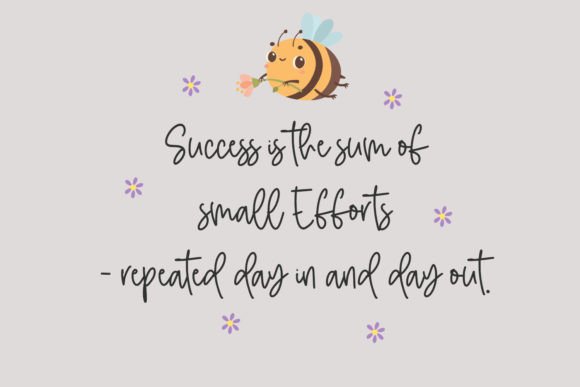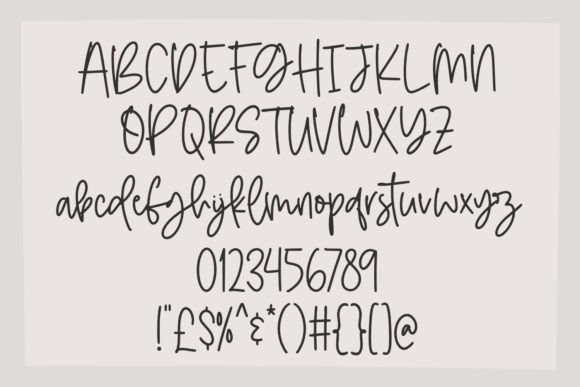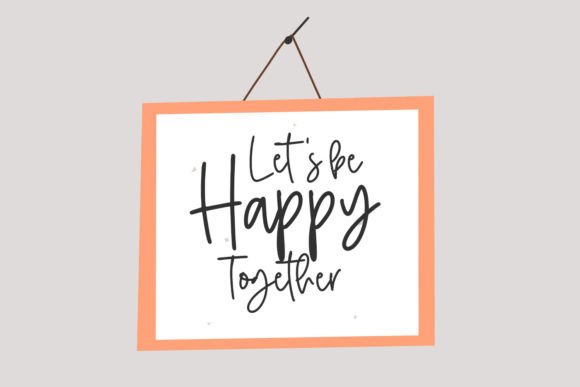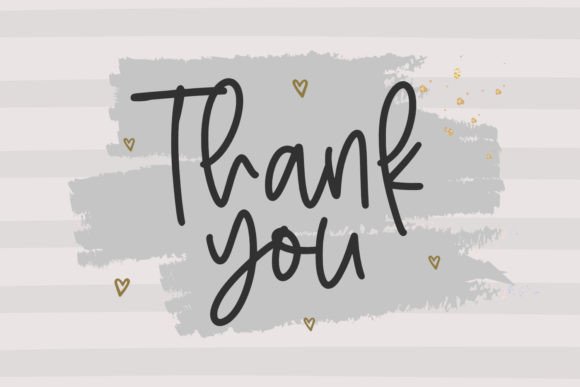
Unlock the Whimsy of Canilea Script Font
Have you ever stumbled upon a font that makes you feel like you’re holding a watercolor brush in your hands? That’s exactly what happens when you meet Canilea Script Font. As a designer, there’s nothing quite like the thrill of discovering a new font that speaks to your creative soul. And Canilea Script Font is one of those rare gems that will make your heart skip a beat.
Canilea Script Font is a charming handwritten script font that’s designed to add a touch of warmth and whimsy to your designs. Its playful strokes and curves are perfect for creating endearing and inviting designs that will capture your audience’s attention. Whether you’re working on a wedding invitation, a children’s book, or a social media campaign, Canilea Script Font is the perfect addition to your design toolkit.
Key Features of Canilea Script Font
- Unique Characteristics: Elegant, cursive script font with a touch of elegance and sophistication, ideal for formal invitations, wedding designs, and other high-end applications.
- Language Support: Supports Latin-based languages, including English, Spanish, French, and many more.
- Font Style: Comes in a single style: Regular, with no bold or italic variations.
Designer Review: Canilea Script Font
Overall, I think Canilea Script Font is a lovely addition to any designer’s toolkit. Here’s what I like about it:
- ✨ Beautiful, elegant lines that make it perfect for invitations, wedding stationery, and other special occasions
- ✨ Comes in a range of weights and styles, giving designers plenty of flexibility when it comes to customization
- ✨ Great for creating a vintage or classic look, which is perfect for designers who want to evoke a sense of nostalgia or tradition
- ⚠️ Some of the characters may not render as well at smaller font sizes, which could be a problem for designers who need to use the font in smaller contexts
- ⚠️ The font may not be as versatile as some other script fonts, and it’s not well-suited for use in digital interfaces or other modern contexts
- ⚠️ Some designers may find the font a bit too ornate or fussy, which could be a problem for those who prefer a more minimalist aesthetic
Overall, I think Canilea Script Font is a great choice for designers who are looking for a beautiful, elegant script font for use in print-based designs. While it may not be the best choice for every project, it’s certainly a valuable addition to any designer’s toolkit.
Canilea Script is ideal for creative projects, such as invitations, wedding cards, and social media graphics. It’s also great for adding a touch of elegance to business presentations and reports. To get the most out of Canilea Script, experiment with different font sizes, colors, and combinations with other fonts.
Alternatives to Canilea Script Font
Carolyna Pro is a high-end script font that combines elegance and sophistication. It’s perfect for use in luxury branding, high-end packaging, and advertising materials. Carolyna Pro has a more refined and polished look compared to Canilea Script Font, making it ideal for projects that require a touch of class and sophistication.
Alex Brush is a beautiful and elegant script font that’s perfect for use in creative projects such as invitations, wedding stationery, and children’s book illustrations. Alex Brush has a more delicate and whimsical feel compared to Canilea Script Font, making it ideal for projects that require a touch of playfulness and imagination.
Great Vibes is a modern and stylish script font that’s perfect for use in fashion branding, lifestyle magazines, and advertising materials. Great Vibes has a more relaxed and casual feel compared to Canilea Script Font, making it ideal for projects that require a touch of modernity and sophistication.
Q: Is the Canilea Script Font available in different weights and styles?
Yes, the Canilea Script Font is available in various weights and styles, including Regular, Bold, Italic, and Bold Italic. This allows you to create a range of visual effects and add depth to your designs. You can also combine different weights and styles to create a unique look that suits your project’s needs.